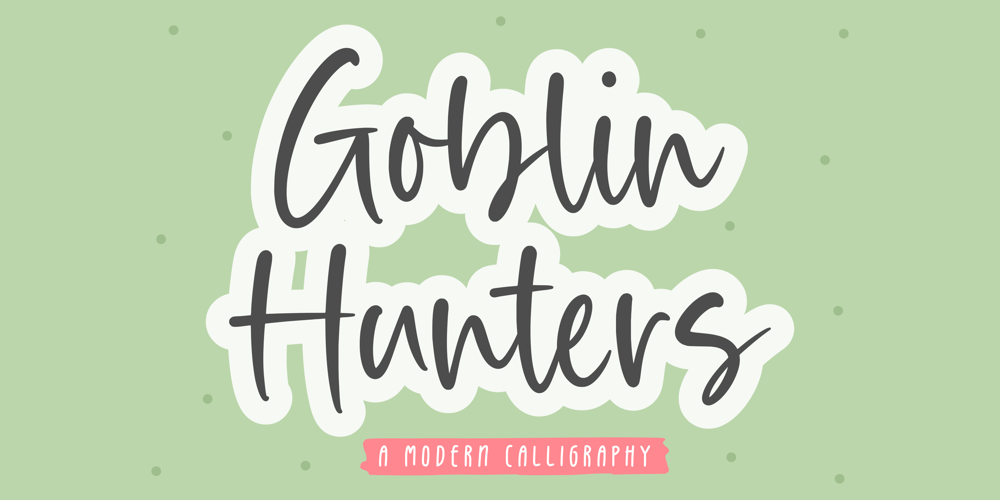
Goblin Hunters Font Family was designed by Restu Angga and published by Balpirick. Goblin Hunters contains 1 styles and family package options. Goblin Hunters is a Modern Calligraphy Font.Whether you’re using it for crafts, digital design, presentations, or making greeting cards, this font has the potential to become your favorite go-to font, no matter the occasion! – also multilingual supportEnjoy the font! Feel free to comment or feedback!Thank you!